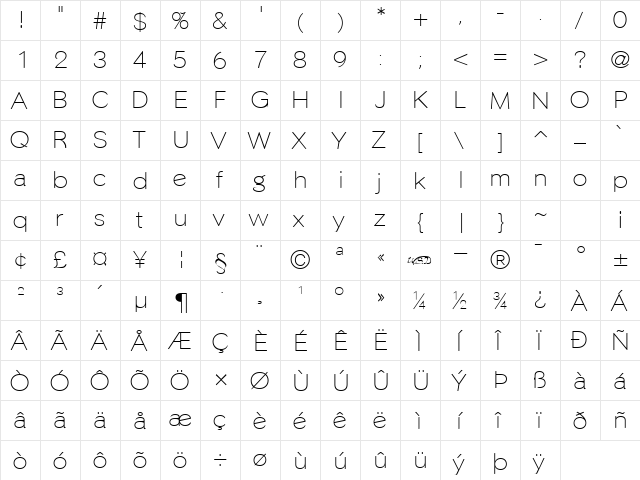
Phinster Fine Normal
Design Context for Phinster Fine Typeface
Phinster Fine takes a measured approach to typography — its balanced proportions and neutral character make it a reliable workhorse for both digital and print work.